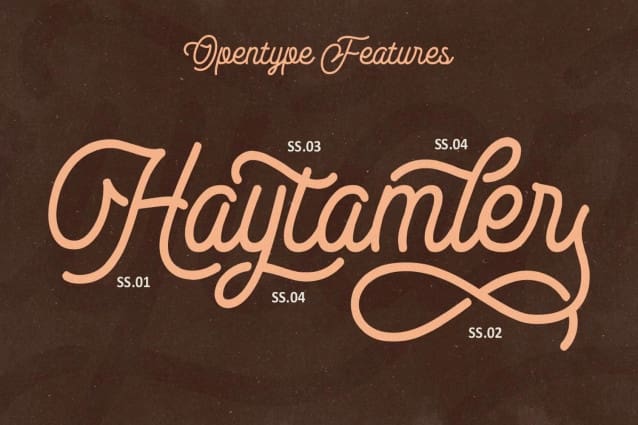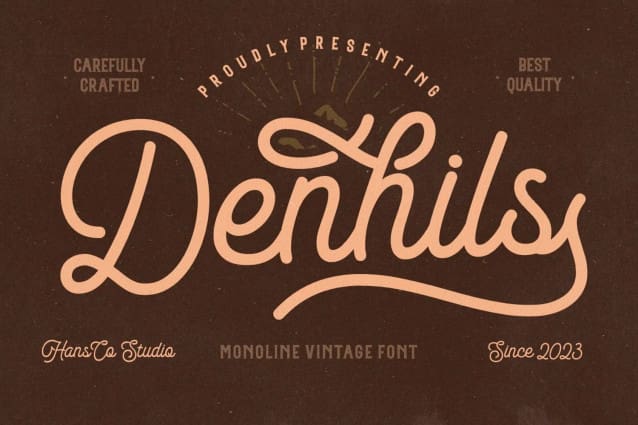
Denhils Retro Font
Denhils Retro Font, is a monoline type font with smooth characters on each side. Use this display monoline font to add that special retro vintage touch to any design idea you can think of!. Very suitable for logotype, Stickers, Packaging design, Cricut Project, headlines, brand identity, t shirt or apparel industry, posters, magazines, books, YouTube, Instagram, websites, or any of your creative design projects.